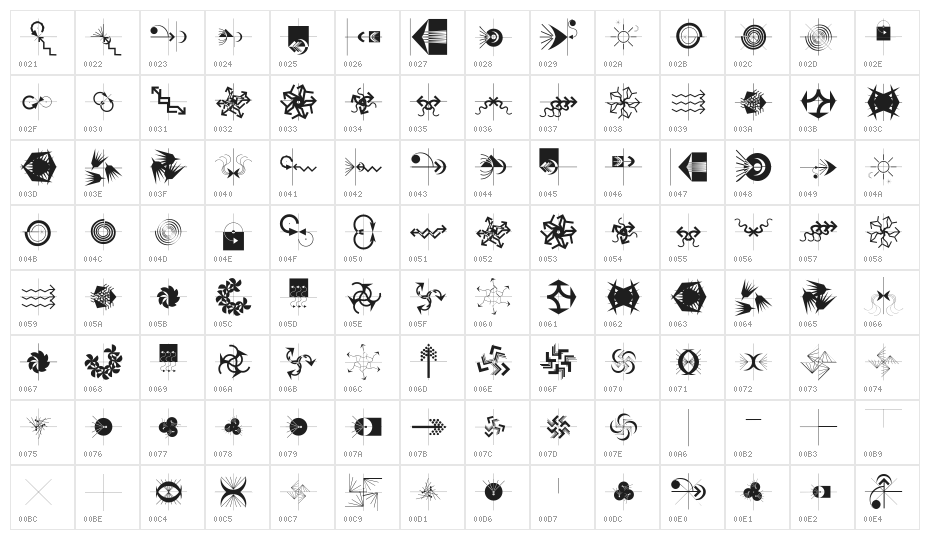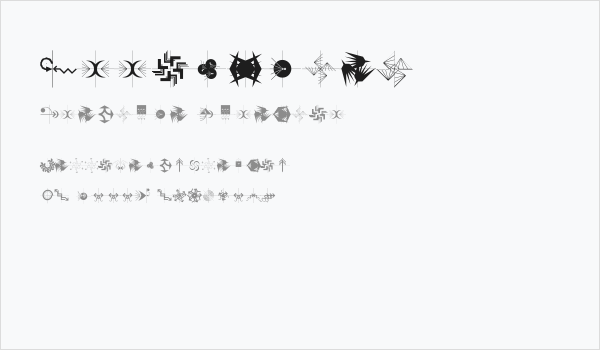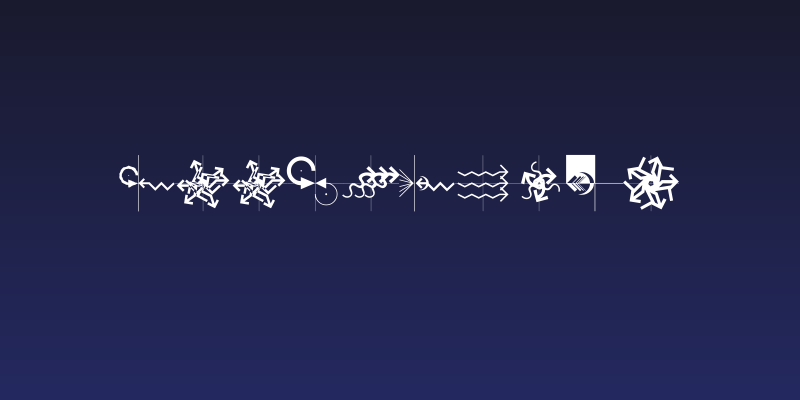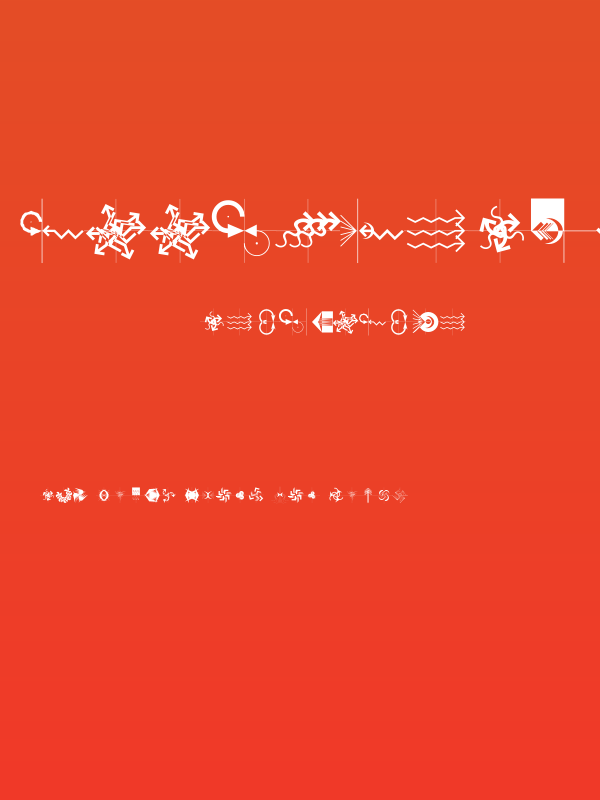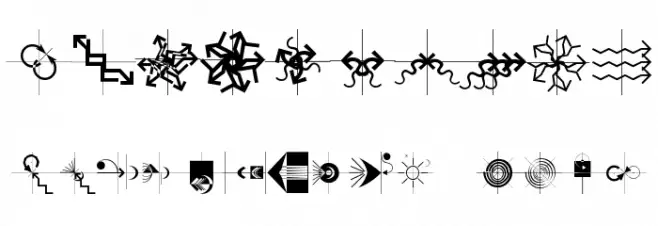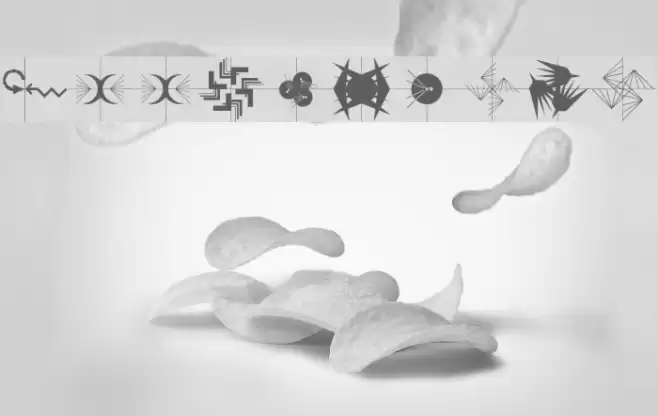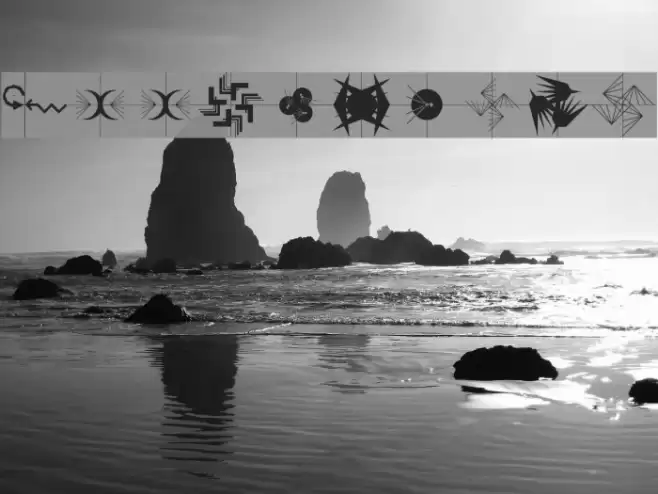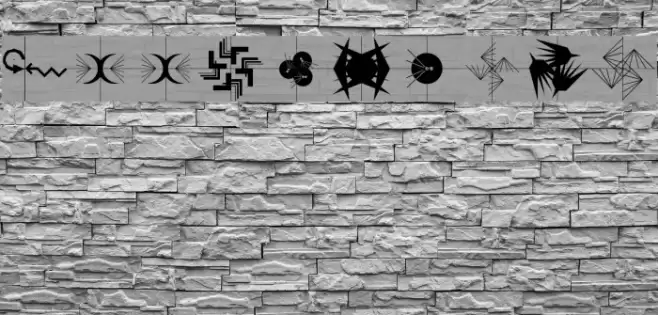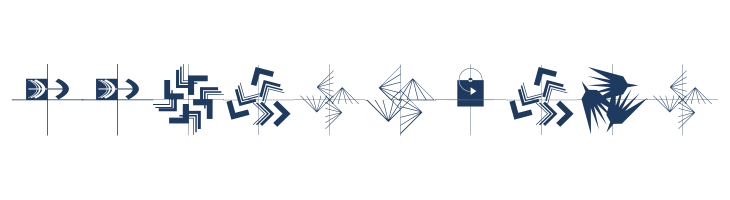
Arrowbytes Font
Arrowbytes Description
This collection features a series of intricate and abstract arrow-themed designs, each with a unique geometric flair. The symbols are highly decorative, incorporating elements such as spirals, stars, and concentric circles, creating a dynamic and visually engaging set. The designs vary in complexity, with some featuring bold, solid shapes and others utilizing fine lines and intricate patterns. The overall aesthetic is modern and artistic, making it suitable for creative and unconventional projects. The symbols are not traditional letters or numbers but rather decorative elements that can be used to enhance visual compositions.
| Use Case | Logos, Decorative elements, Artistic compositions |
| Proposed Projects | Ideal for use in graphic design projects, such as creating unique logos, posters, or digital artwork. These symbols can also be used in branding materials to add a creative and modern touch. |